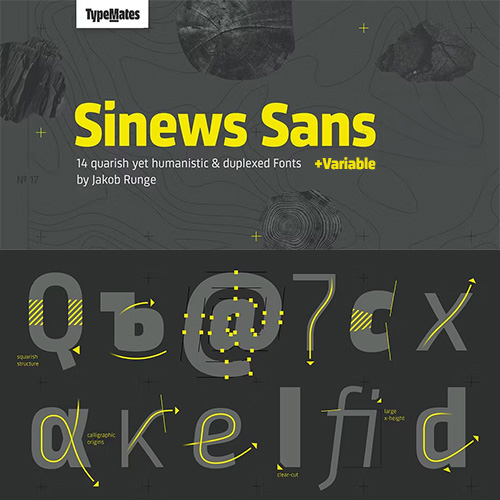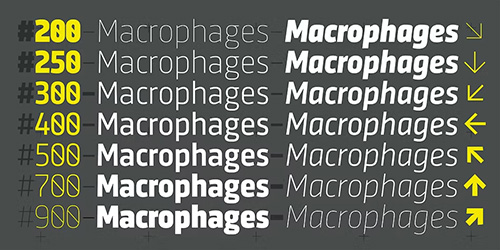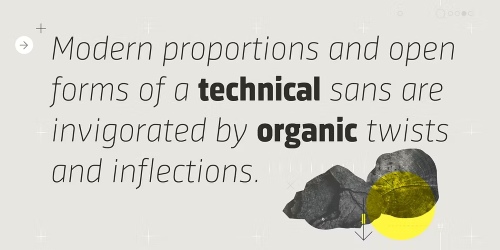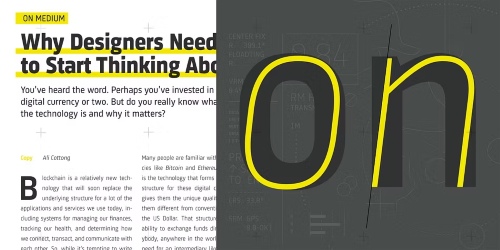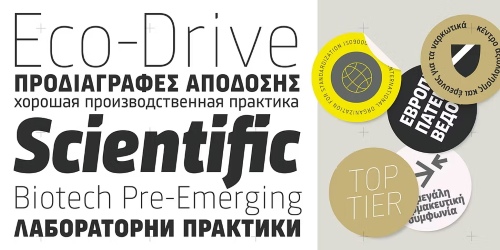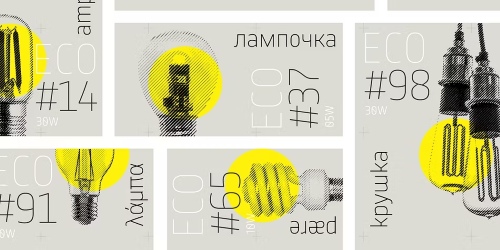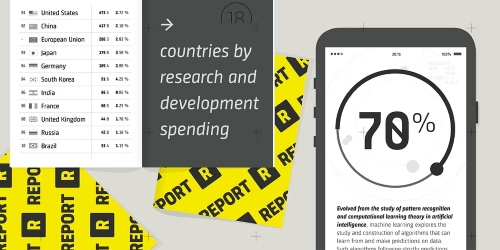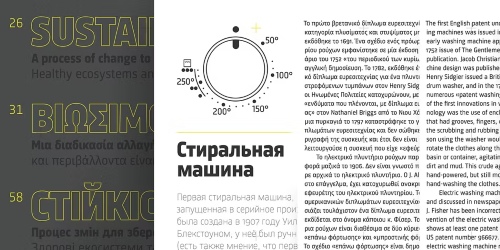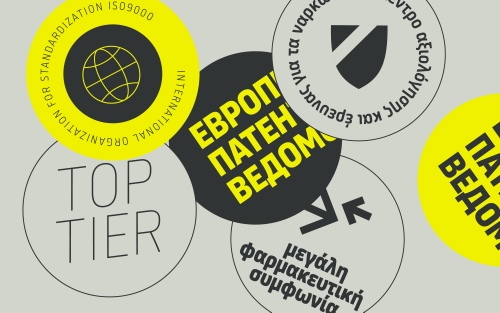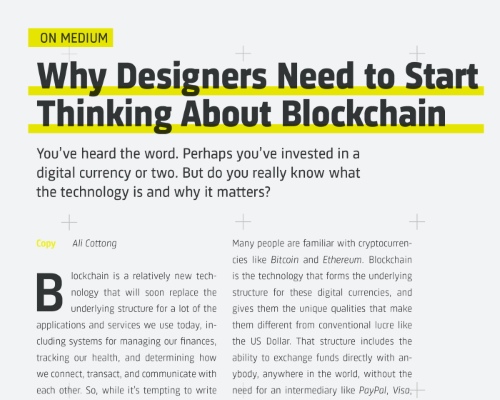
- In Sinews Sans, the modern proportions and open forms of a technical Sans are invigorated by organic twists and inflections. Trim and trimmed, its multiplexed design — each character has the same width across seven weights and styles — can bring weight and strength to page or interface without sprawl or reflow. At large sizes, details with calligraphic origins, like the clipping of the l and title of the i, accent the industrial design of some characters.